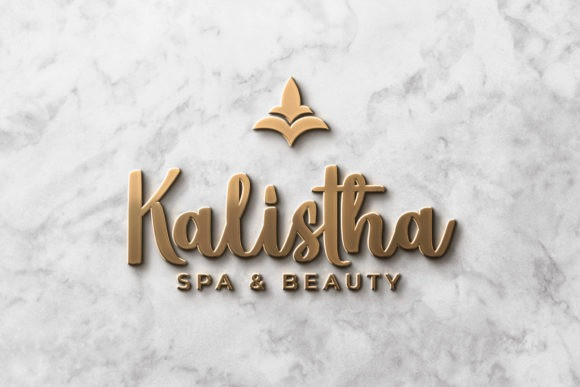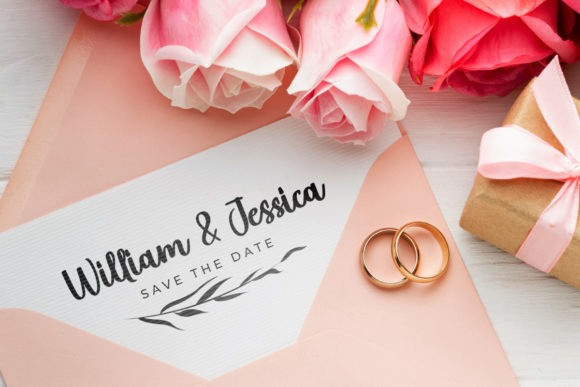
Chicken Nuggets Font
Chicken Nuggets is a sweet, whimsical and flowing script font. Featuring characters that dance along the baseline, this font will add a luxury spark to any design project that you wish to create! This font is PUA encoded which means you can access all glyphs and swashes with ease!